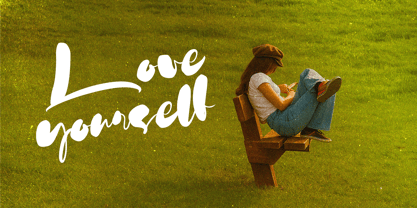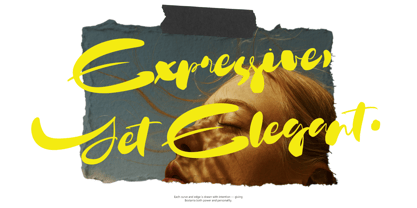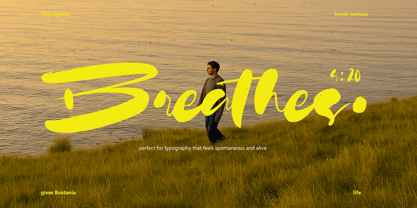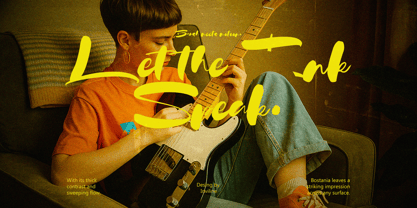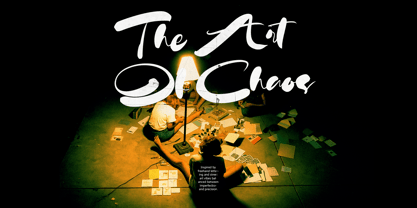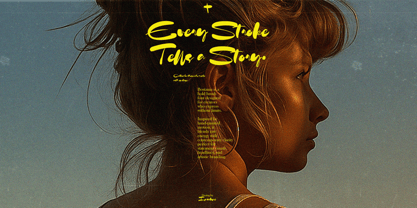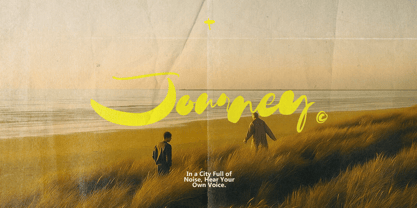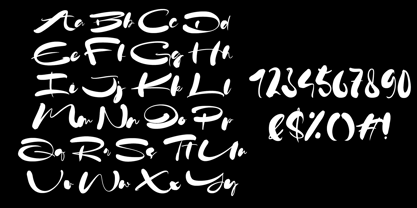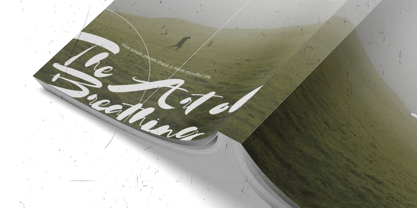
Bastonia
by Inviline
The Bastonia Font Family was designed by Virgiawan Listanto and published by Inviline. Bastonia contains 1 styles. More about this family
Bostania is a bold expressive brush font with hand-drawn strokes that radiate confidence and freedom—ideal for those who design with raw energy and emotion. What you get: uppercase, lowercase, numerals, punctuations, and handcrafted glyphs with dynamic curves. Perfect for statement posters, rebellious headlines, bold packaging, artistic branding, or anything that needs attitude. Each letter feels like a bold motion captured in ink, giving your typography a loud, yet elegant edge. Bostania is not just a font, it's a voice—crafted for creators who break the rules and leave a mark.
Designers: Virgiawan Listanto
Foundry: Inviline